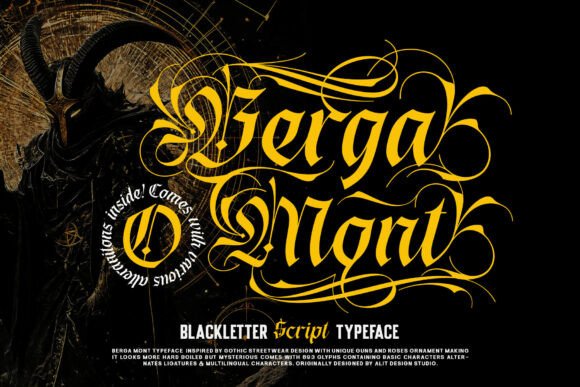
Unleashing the Dark Elegance of Berga Mont: A Gothic Blackletter Masterpiece
I’ll never forget the design project that led me to discover Berga Mont. I was working on a branding campaign for a metal band, and I was struggling to find a font that captured the perfect blend of raw energy and sophistication. The client wanted something that would make a statement, but still convey a sense of elegance and refinement. After hours of scouring font libraries and marketplaces, I stumbled upon Berga Mont – and it was love at first sight. ✨
A Design Arsenal for the Bold and Mysterious
Berga Mont is more than just a font – it’s a complete design arsenal crafted for those who demand power and mystery in their typography. Inspired by the bold spirit of modern gothic streetwear and the timeless beauty of guns and roses motifs, this breathtaking blackletter script typeface is designed by Alit Design Studio. Its sharp, angular letterforms are adorned with elaborate, flowing swashes that weave through your text, creating a dynamic and captivating visual rhythm.
What I Love About Berga Mont
- ✨ Raw Gothic Energy: Berga Mont’s bold, sharp letterforms exude a sense of power and intensity, perfect for making a statement.
- ✅ Sophisticated Ornamentation: The intricate swashes and flourishes add a touch of elegance and refinement to any design.
- 💥 Feature-Rich: With a wide range of OpenType features, glyphs, and stylistic alternates, Berga Mont offers endless possibilities for creative experimentation.
While Berga Mont is an incredible font, it’s not without its quirks. 🤔 Here are a few things to keep in mind:
- ⚠️ Legibility at Small Sizes: Due to its intricate ornamentation, Berga Mont can be challenging to read at small font sizes. It’s best used at larger sizes where its details can shine.
- ⚠️ Pairing with Other Fonts: Berga Mont’s bold, Gothic style can be overpowering when paired with other fonts. Use it as a headline font or pair it with a simple, sans-serif font for body text.
Perfect for These Projects
Berga Mont is built for projects that need to make an unforgettable impact. It’s the perfect choice for:
- Logos & Branding: Streetwear, Tattoo Studios, Metal Bands
- Apparel Design: T-shirts, hoodies, and other statement apparel
- Book Covers: Fantasy, horror, and other genres that demand a bold, attention-grabbing design
According to Alit Design Studio, Berga Mont was inspired by the bold spirit of modern gothic streetwear and the timeless beauty of guns and roses motifs. The designer’s goal was to create a font that would capture the perfect blend of raw energy and sophistication, with intricate ornamentation and a range of OpenType features.
- Q: What type of projects is Berga Mont best suited for?
- A: Berga Mont is perfect for projects that need to make an unforgettable impact, such as logos and branding for metal bands, tattoo studios, and streetwear brands, as well as apparel design and book covers.
- Q: Is Berga Mont a difficult font to read?
- A: Berga Mont can be challenging to read at small font sizes due to its intricate ornamentation. It’s best used at larger sizes where its details can shine.